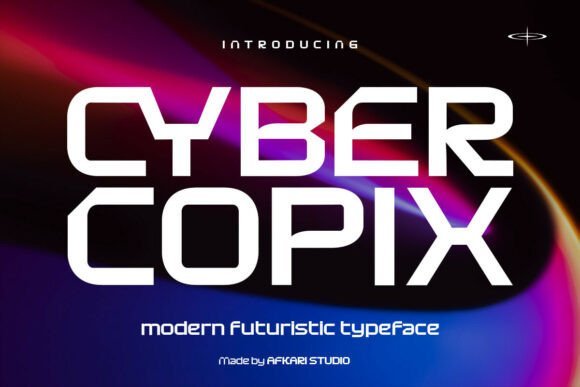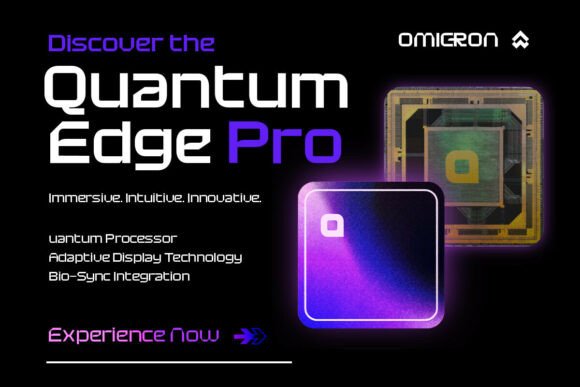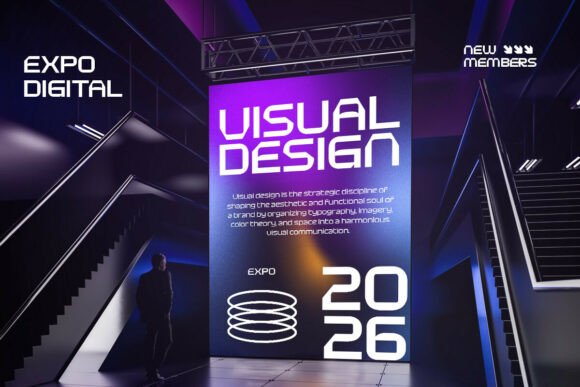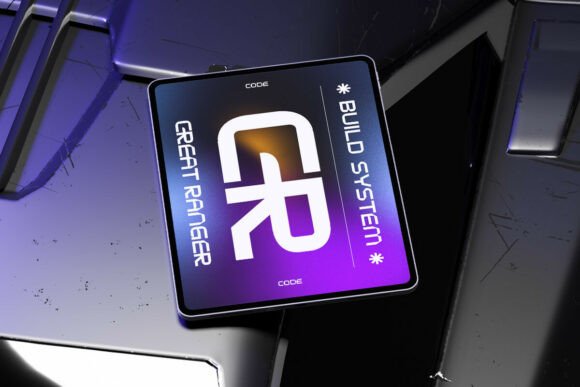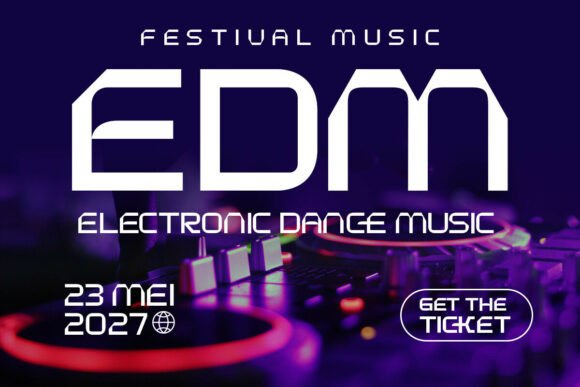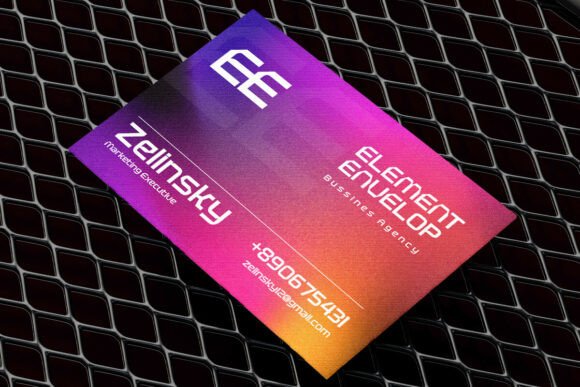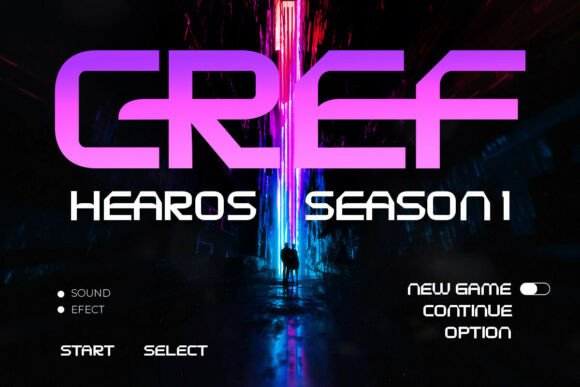
The Future of Typography: Unleashing the Power of Cyber Copix Font
Imagine you’re working on a project that requires a font that screams innovation, speed, and modern energy. You’re brainstorming ideas, experimenting with different designs, and finally, you stumble upon the perfect combination of style and substance – the Cyber Copix Font.
This modern futuristic sci-fi font is designed to give your typography a bold and professional futuristic identity. With its clean lines, strong structure, and high-tech personality, Cyber Copix Font is the perfect solution for creators who want to elevate their designs and make a lasting impression.
Whether you’re working on an esports branding campaign, a sci-fi movie title sequence, or a futuristic UI concept, the Cyber Copix Font is the perfect tool to unleash your creativity and bring your ideas to life.
Cyber Copix Font Key Features
- Font Family: Cyber Copix
- Unique Characteristics: Cyber Copix features a futuristic and edgy design aesthetic, with bold lines and geometric shapes, making it ideal for sci-fi and tech-related projects.
Cyber Copix Font Review
Overall, I found the Cyber Copix font to be an interesting addition to any digital design project. ✨ It’s clear that the designers aimed to create a futuristic, high-tech feel, and they’ve largely succeeded.
- The font’s sharp lines and angles give it a sense of edge and modernity.
- The varying weights and styles offer a range of options for different design applications.
- The font’s clean, sans-serif aesthetic makes it easy to read and understand.
However, there are a few limitations to consider. ⚠️ The font may not be the best choice for projects that require a more subtle or understated look. Additionally, some of the more extreme weights and styles may be difficult to read at small font sizes.
While the Cyber Copix font has its limitations, I think it’s a solid choice for designers looking to add a touch of futuristic flair to their work. With its clean lines, varied weights, and modern aesthetic, it’s sure to stand out in a crowded design landscape.
Tips for Getting the Most Out of Cyber Copix Font
Use Cyber Copix Font to create futuristic and high-tech designs.
Combine it with bold colors and geometric shapes for a striking effect.
Use Cyber Copix Font for logos, titles, and headings to add a touch of futurism.
Alternatives to Cyber Copix Font
Fedra Sans
Fedra Sans is a sans-serif font designed for modern and sleek designs. It’s ideal for use in technology and corporate settings. Fedra Sans is more geometric and clean compared to Cyber Copix Font, which gives it a more futuristic feel. It’s also highly legible and versatile, making it suitable for a wide range of applications.
Montserrat is a sans-serif font inspired by urban typography. It’s perfect for use in designs that require a strong, modern feel. Montserrat is more condensed and narrower than Cyber Copix Font, making it ideal for use in headings and titles. It’s also highly versatile and can be used in a variety of contexts, from technology to fashion.
Avenir Next
Avenir Next is a sans-serif font designed for use in digital applications. It’s ideal for use in designs that require a clean, modern feel. Avenir Next is more minimalist and elegant compared to Cyber Copix Font, which gives it a more refined and sophisticated look. It’s also highly legible and suitable for use in a wide range of applications.